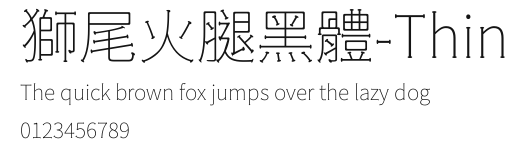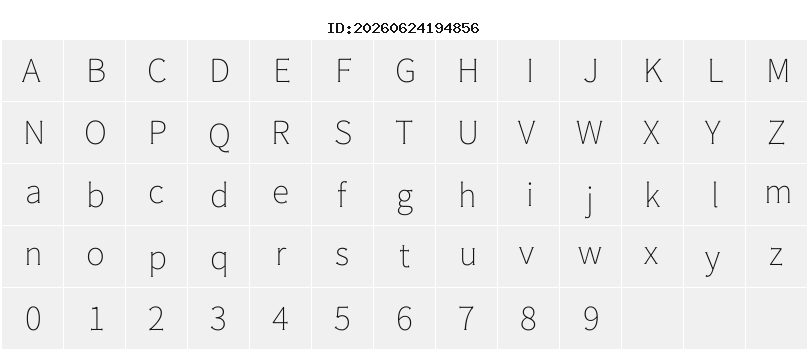
獅尾火腿黑體-Thin Preview
About 獅尾火腿黑體-Thin.ttf
獅尾火腿黑體-Thin.ttf is a modern, elegant sans-serif font designed for ultimate readability and visual harmony. Perfect for branding, headlines, web design, and print materials.